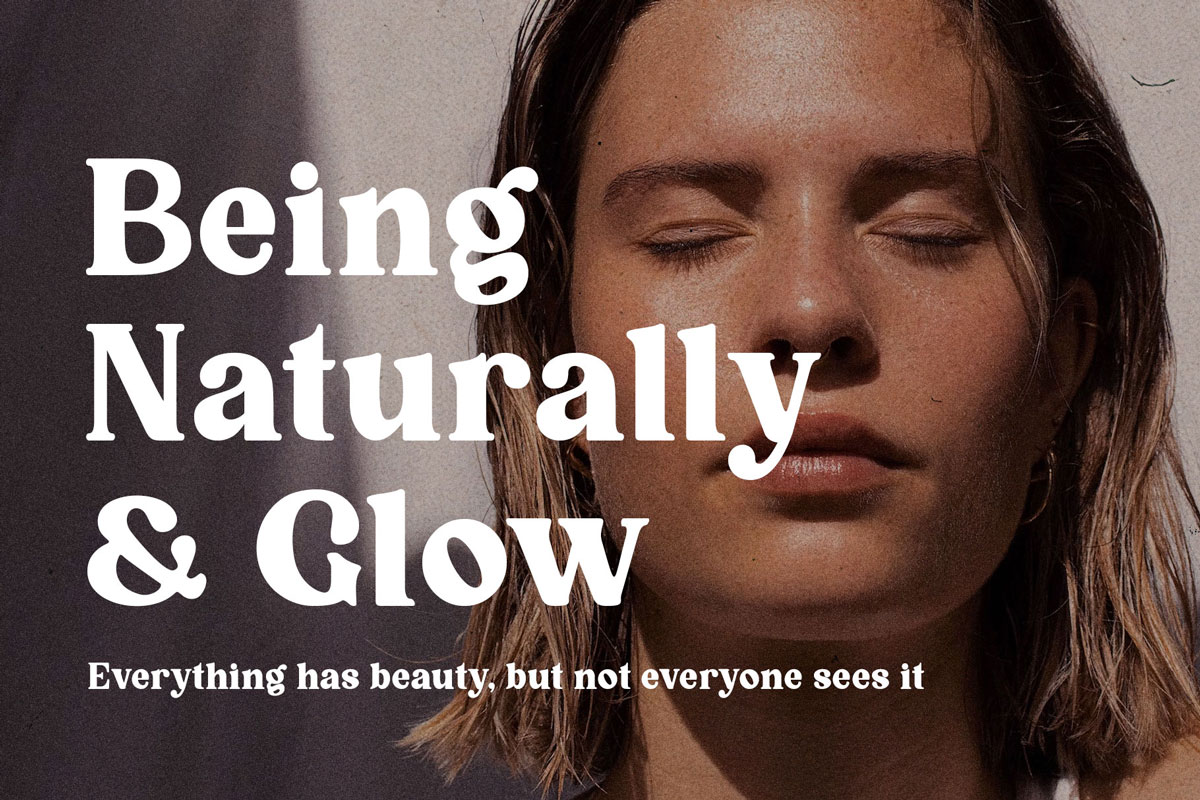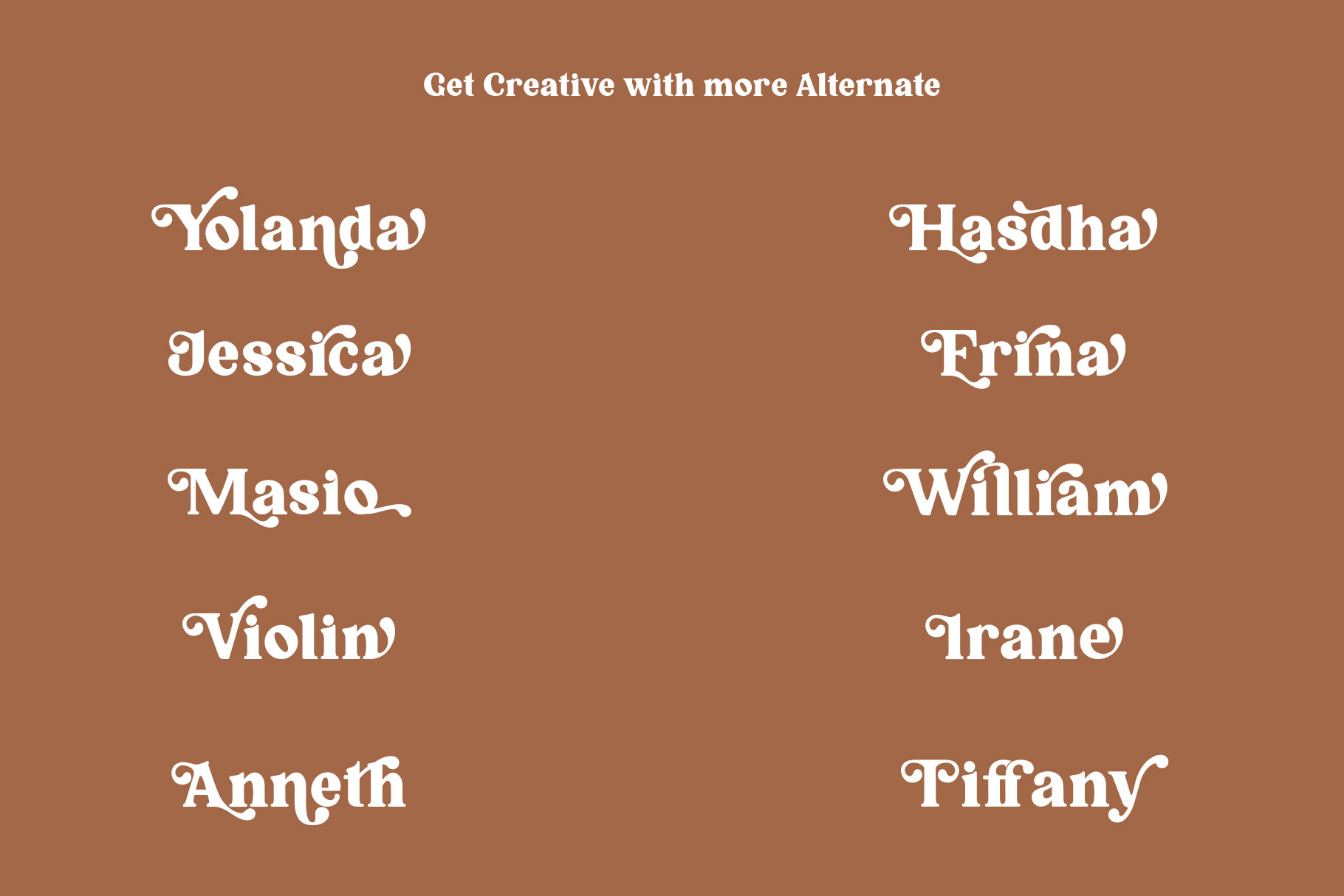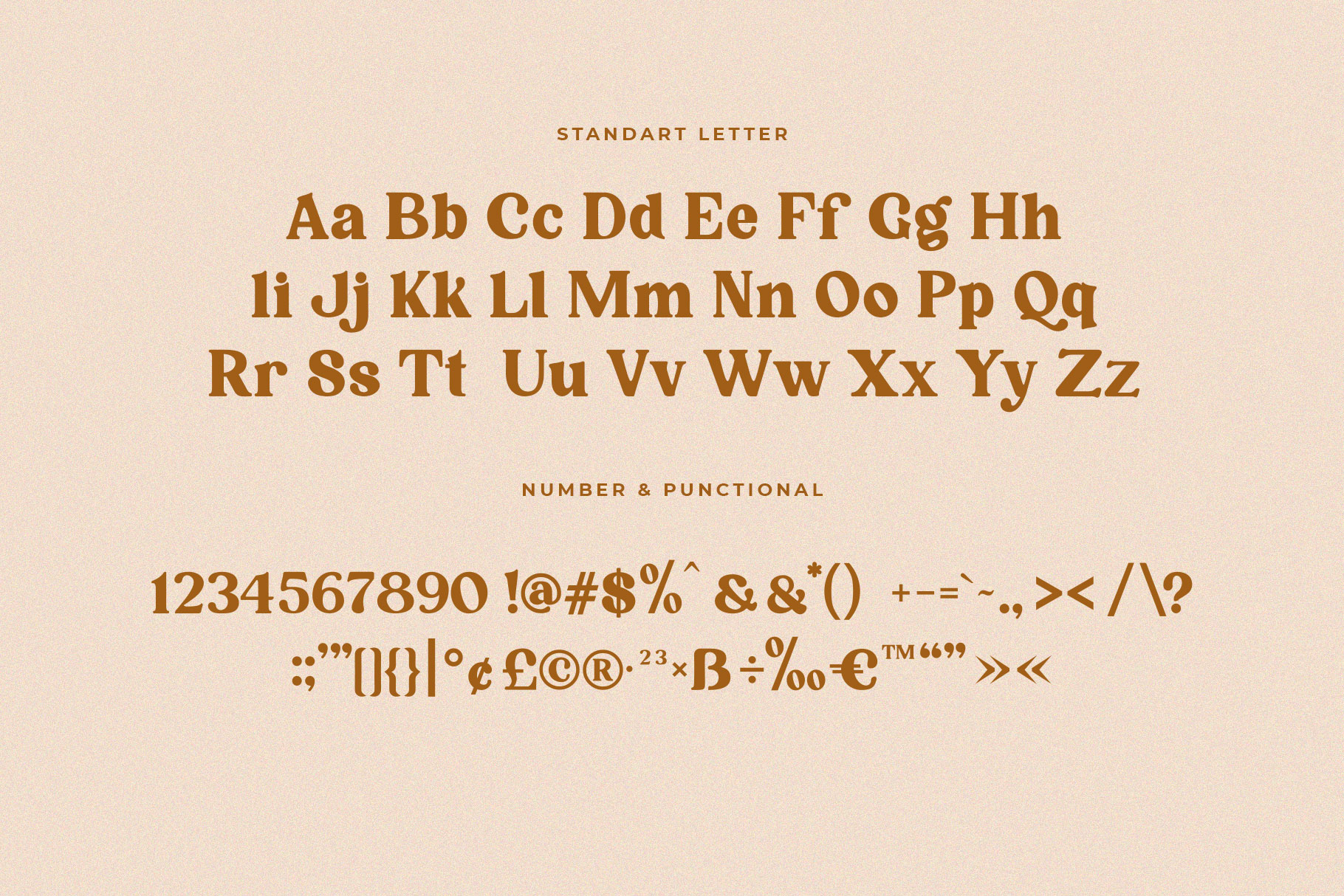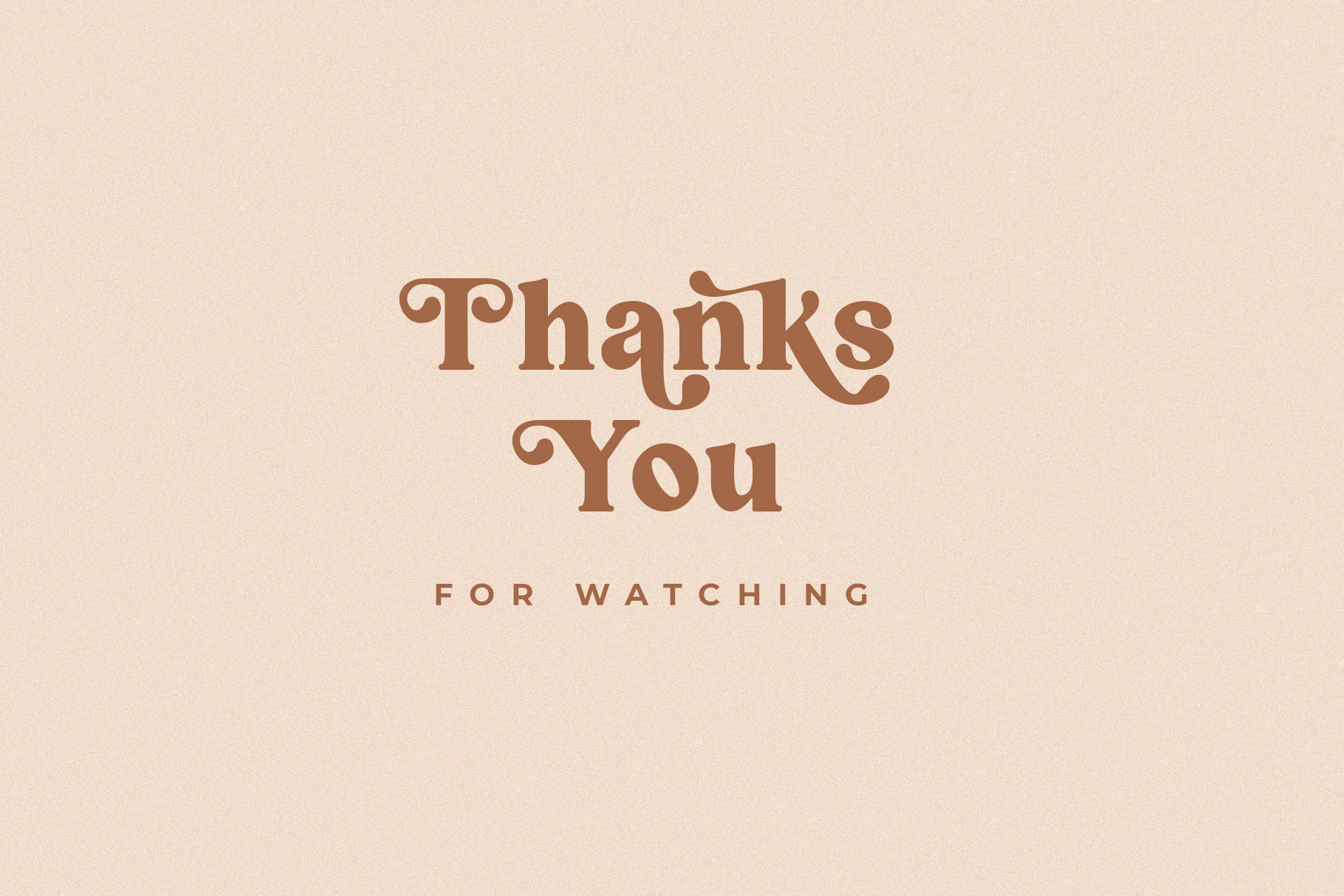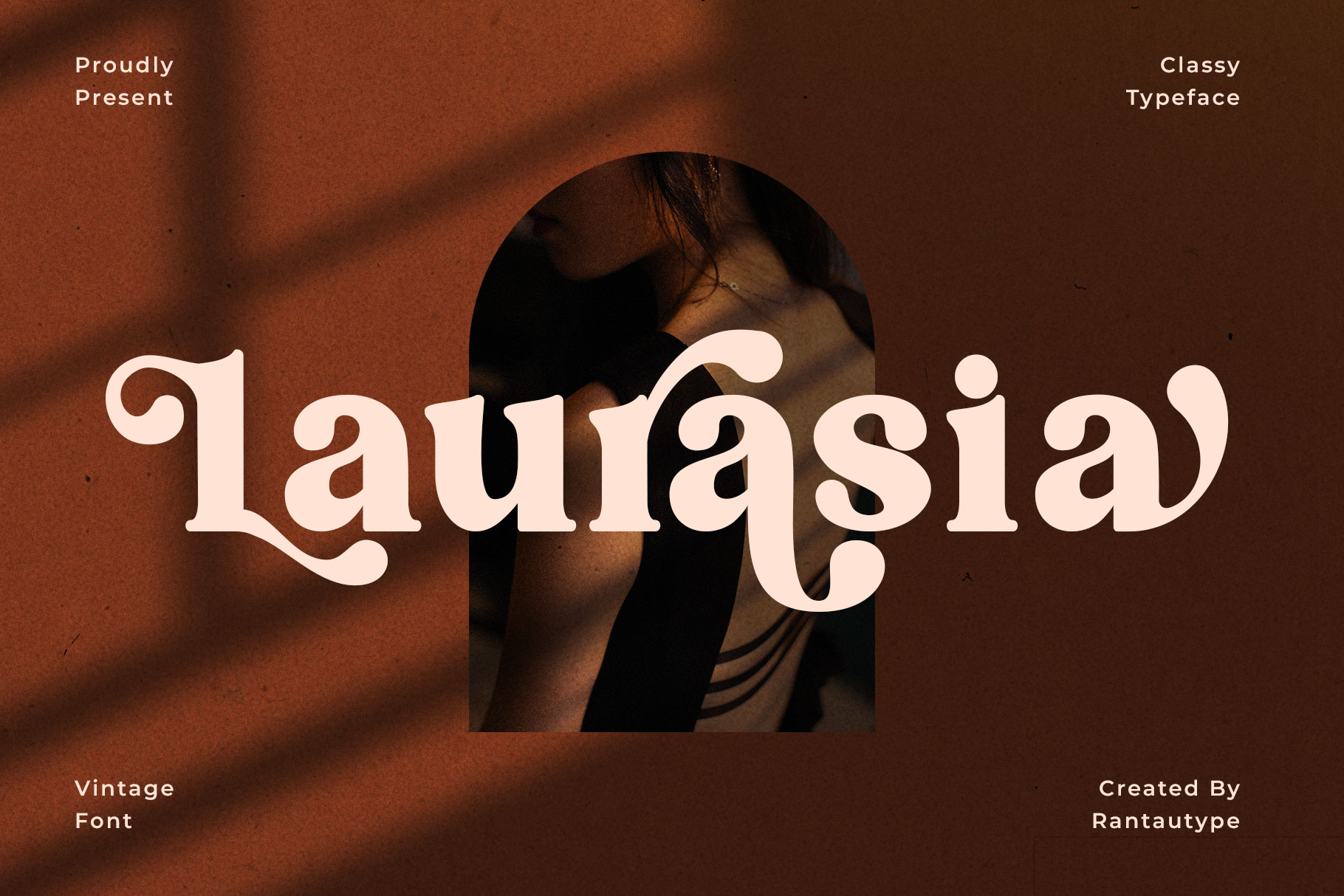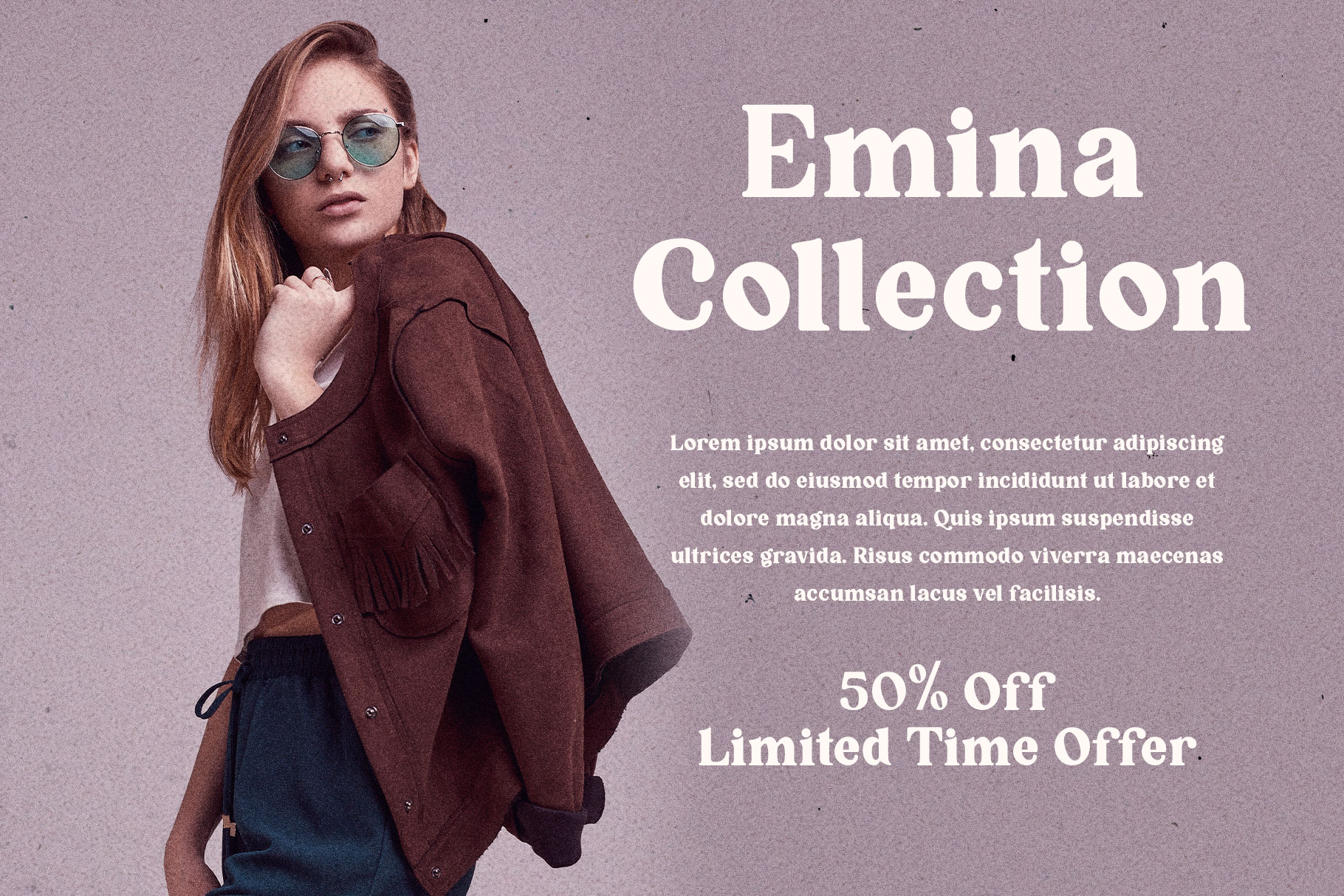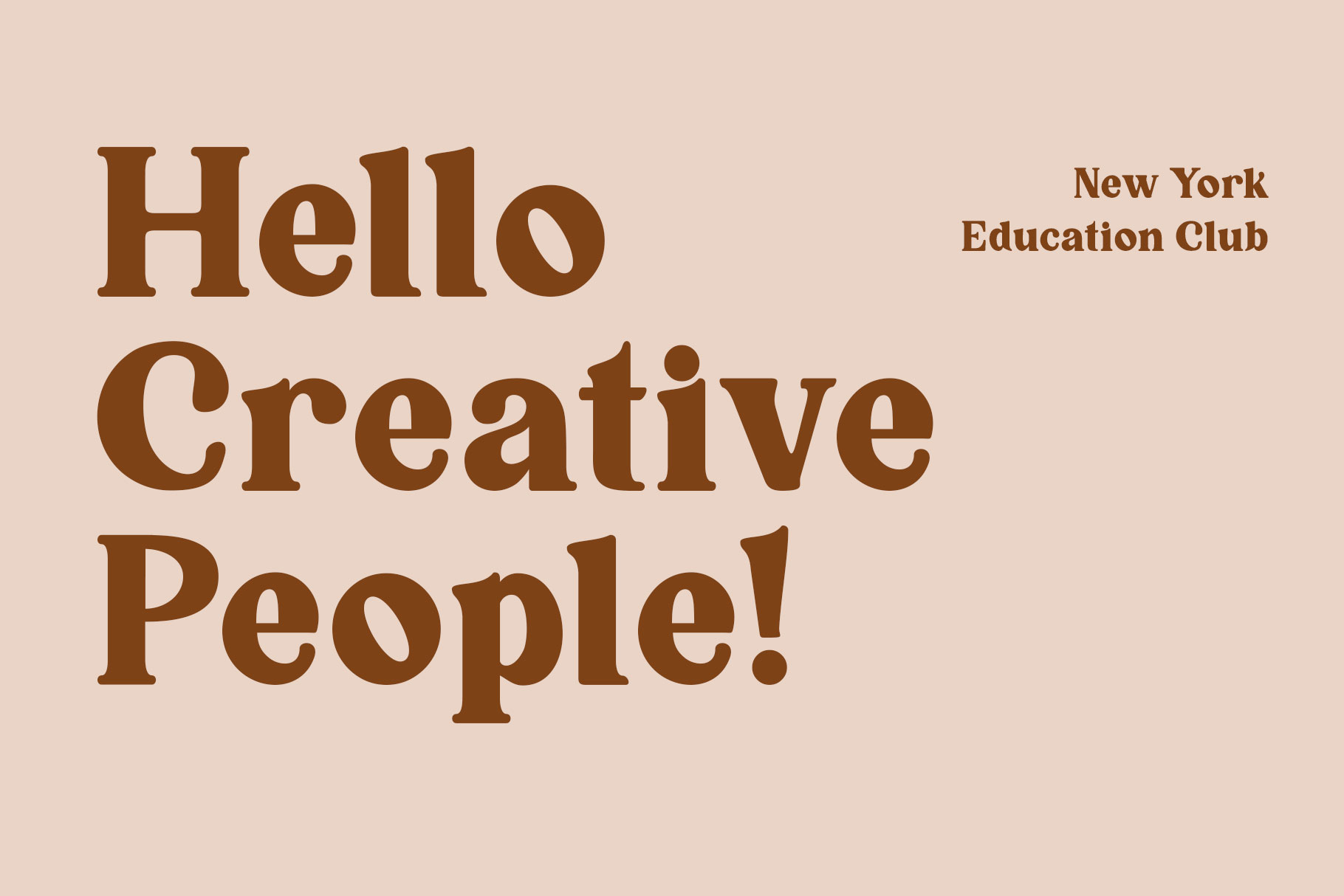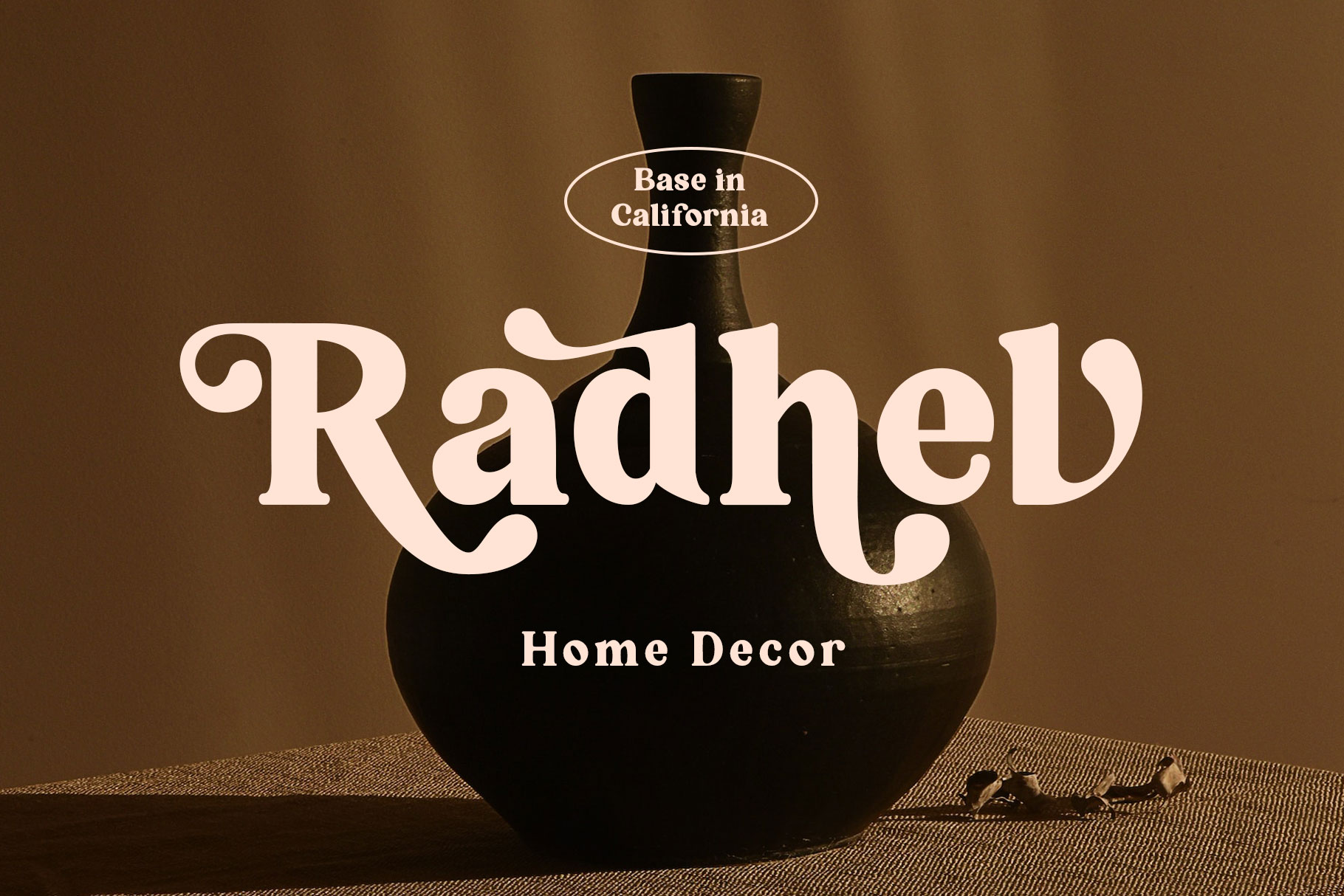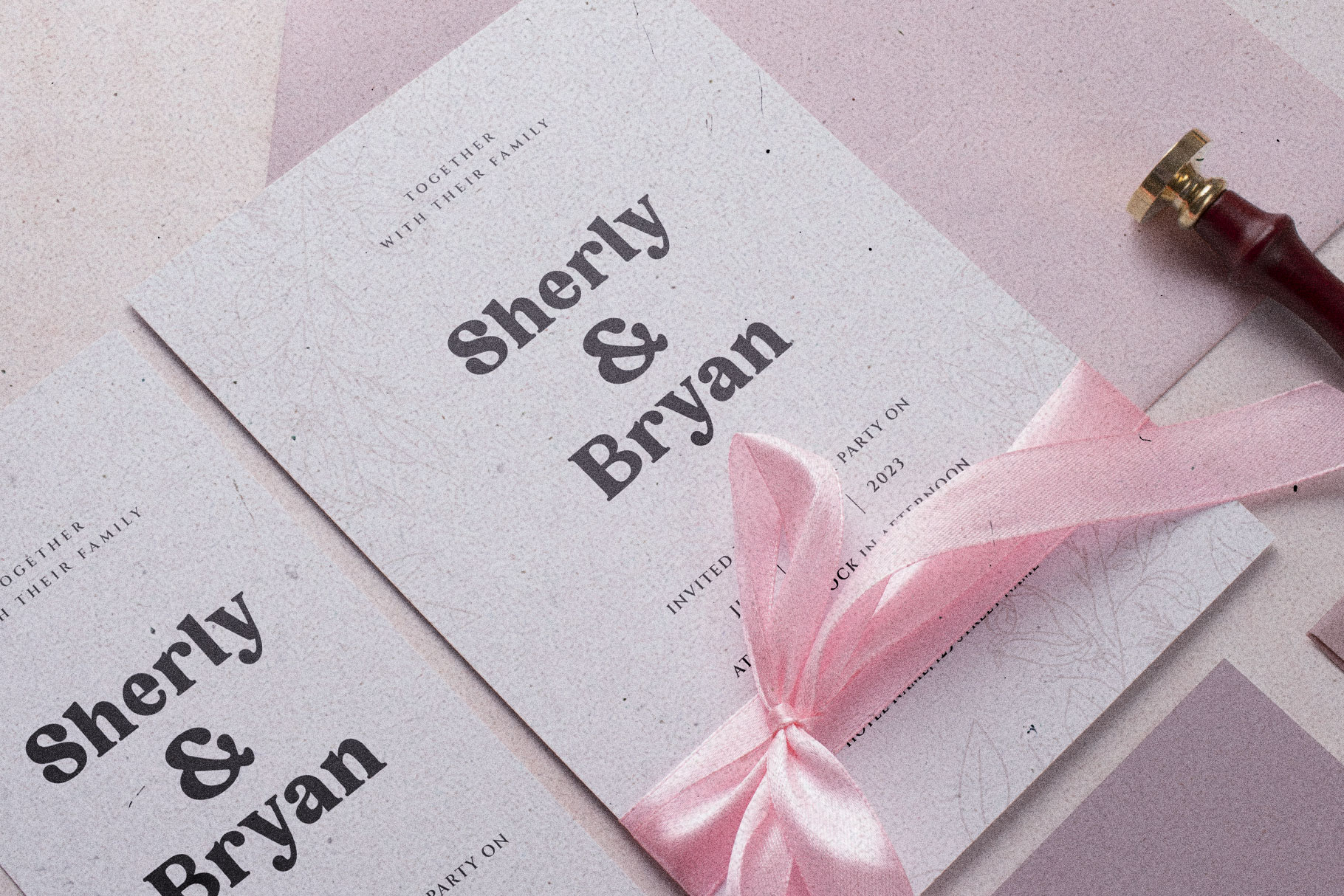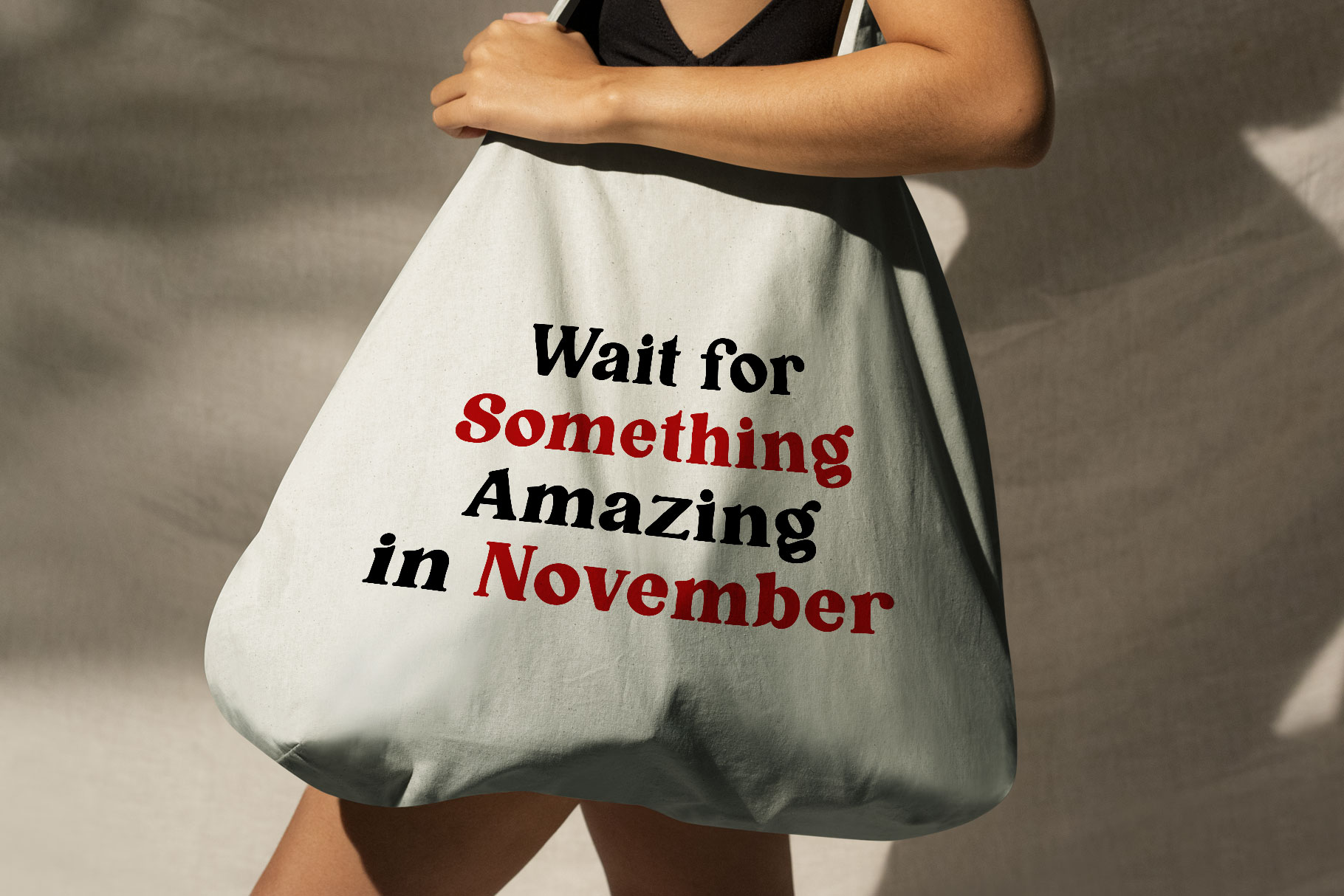
Laurasia Vintage Serif Font
Laurasia is a stylish font that is both vintage and bold font. It’s thick curves give a 70s groovy vibe with the serifs bringing it slightly back to traditional
Laurasia fits perfectly into those nostalgic moodboards and vintage logos. It come with a unique lower and uppercase plus numbers and punctional. Laurasia also have more alternate so you can get creative with more optional.
Laurasia- separate in reguler and ligature so you can choice want to use ligature or not. For alternate in uppercase, numerals and punctuation. (See preview image for the full character map.)